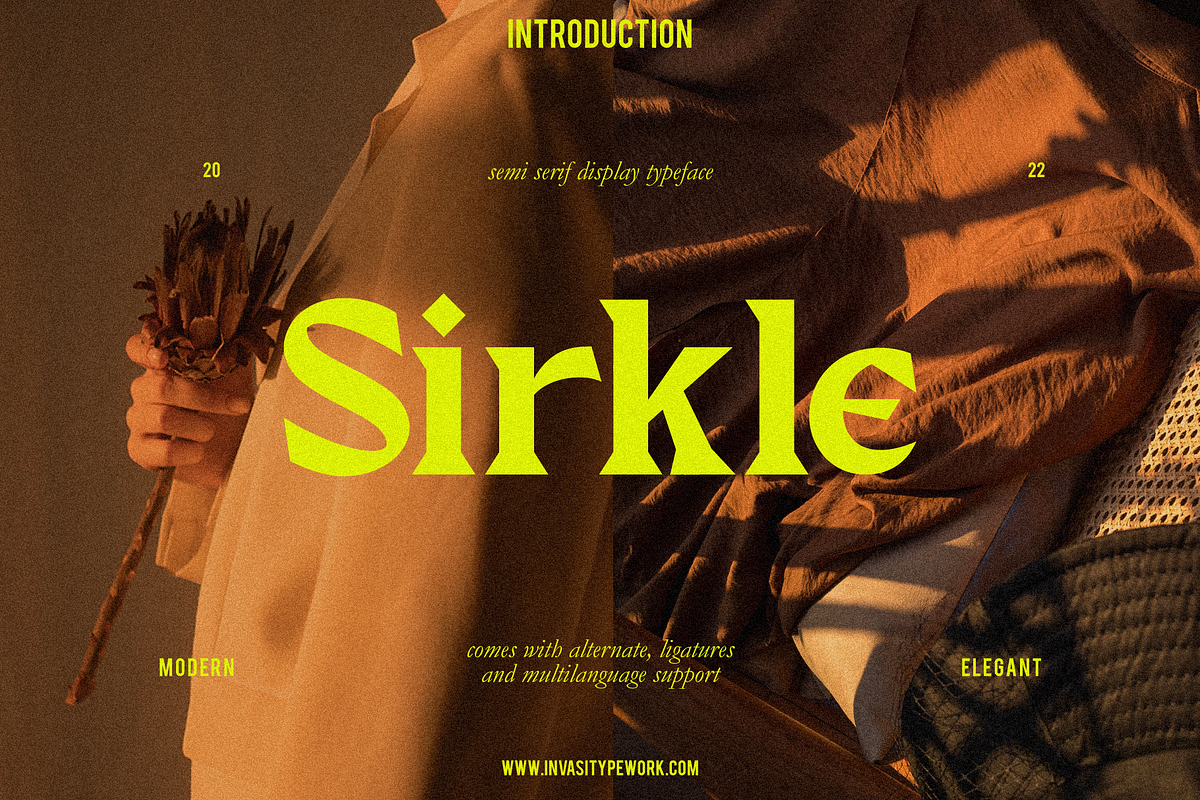
Sirkle Semi Serif Display Font Free Download is a stylish and contemporary typeface that combines the elegance of serif with the modern appeal of display fonts. Featuring unique letterforms with subtle curves and sharp edges, this font is perfect for headlines, logos, posters, branding, and editorial design.
The semi-serif style gives it a timeless, yet bold look that is perfect for projects that need both sophistication and modern flair. Whether you're working on fashion campaigns, luxury branding, or creative advertisements, Sirkle Semi Serif Display Font Free Download brings visual impact and personality to your design.